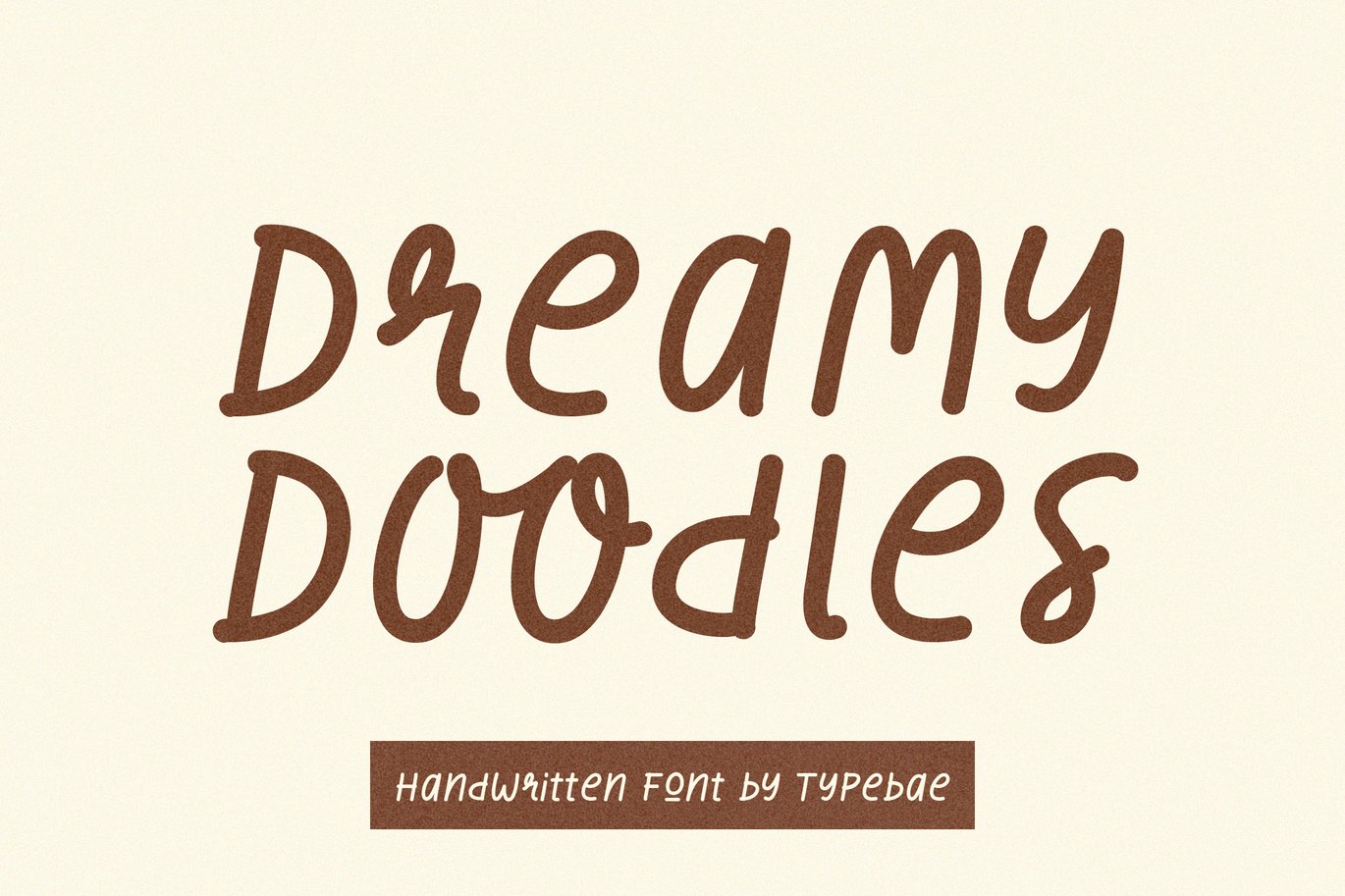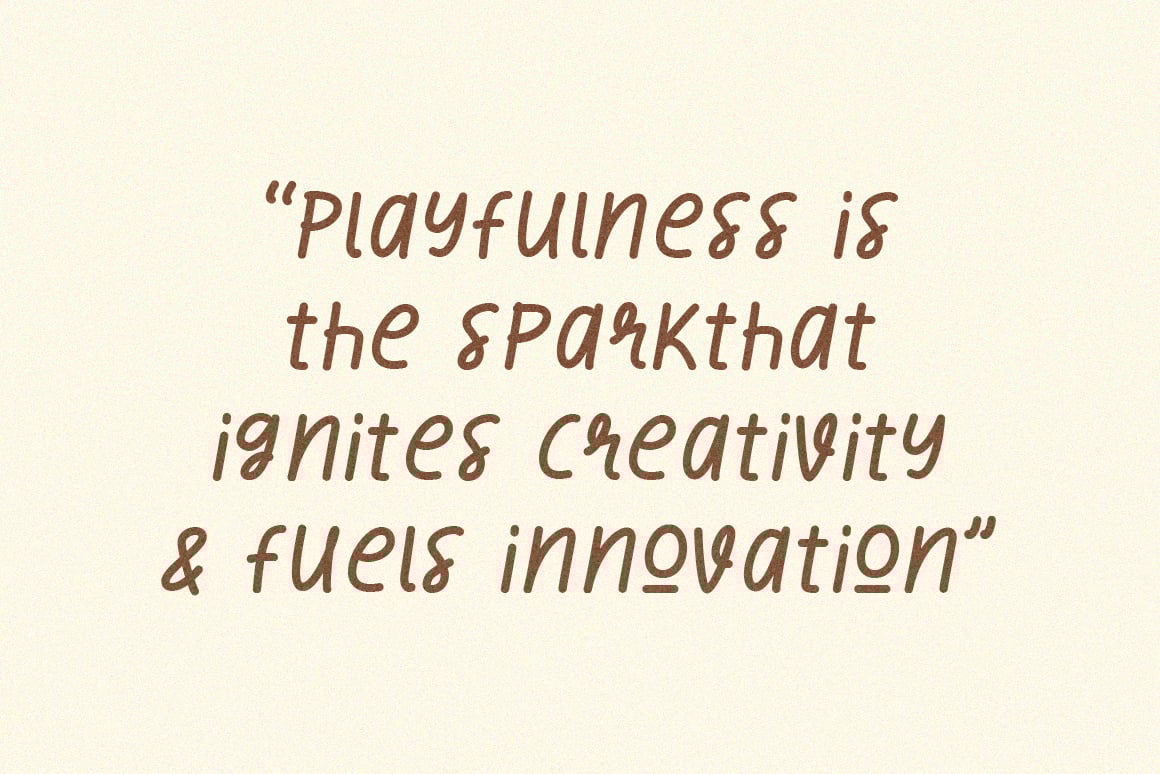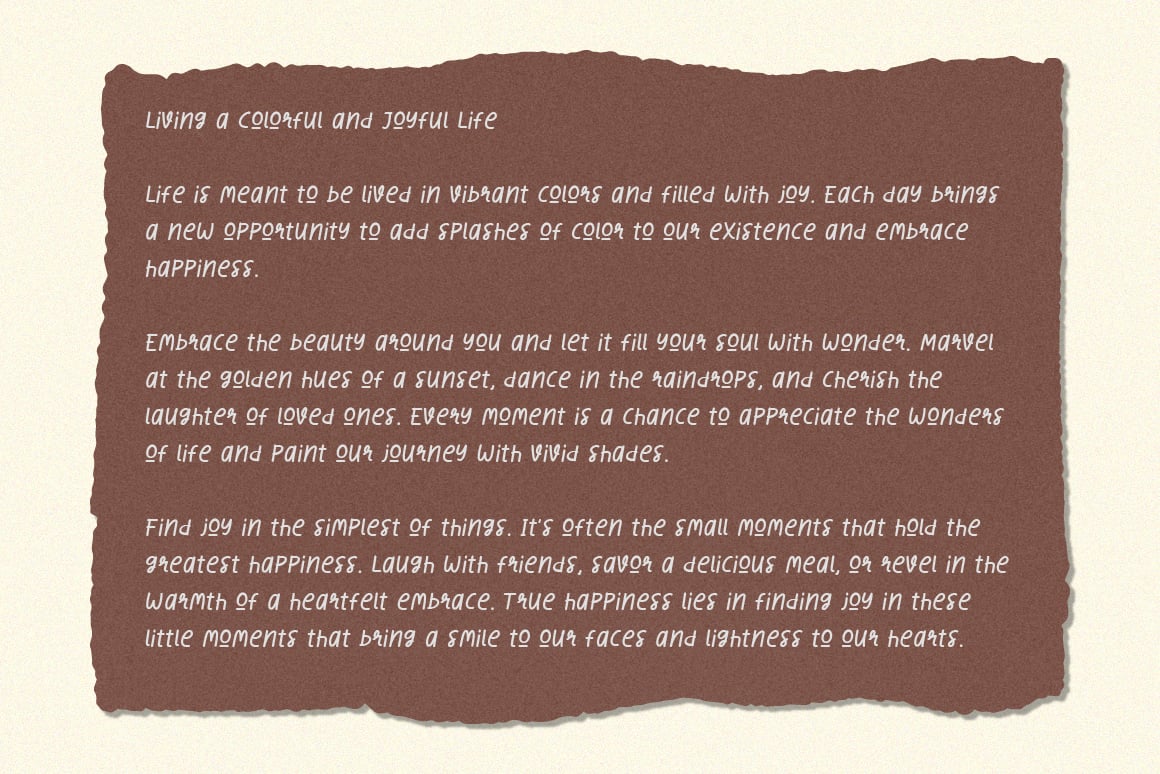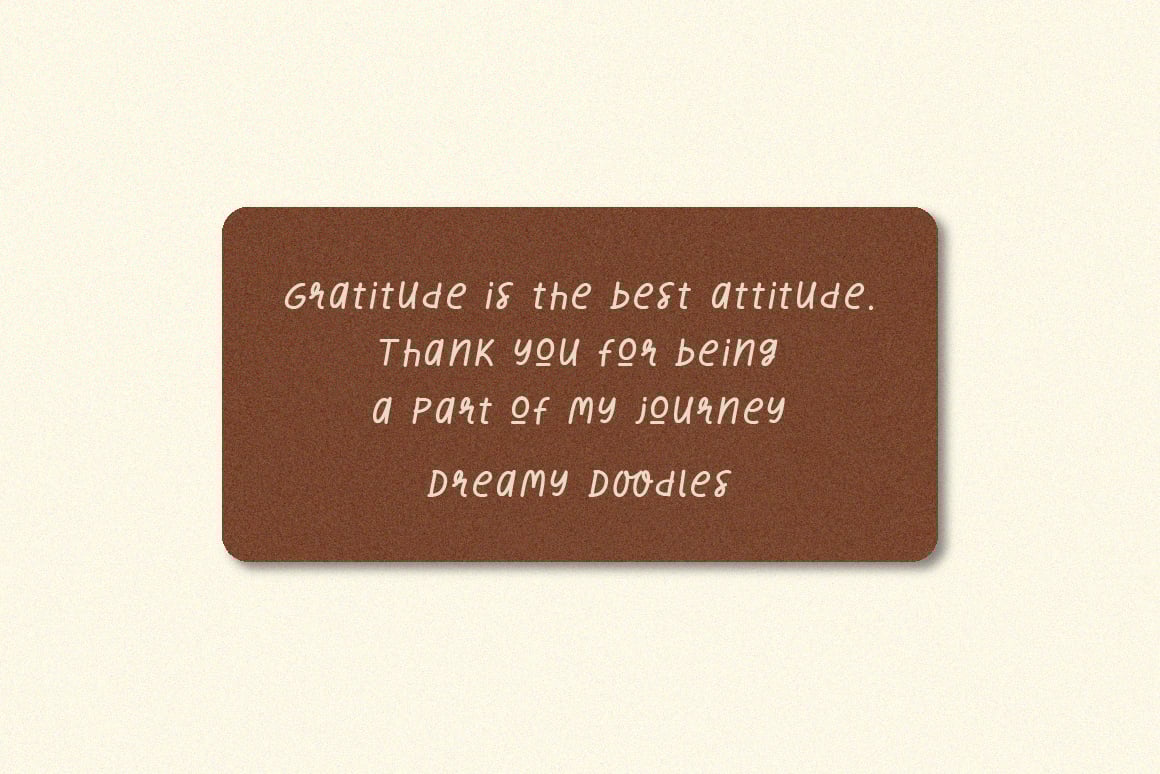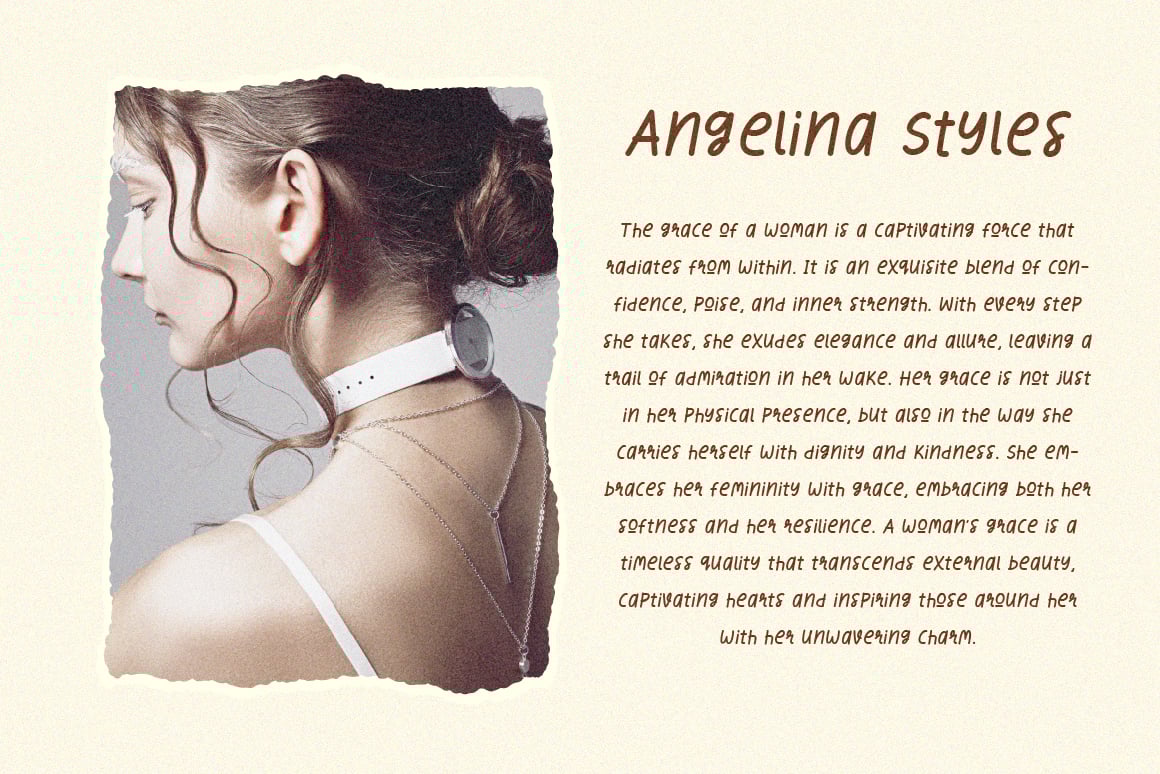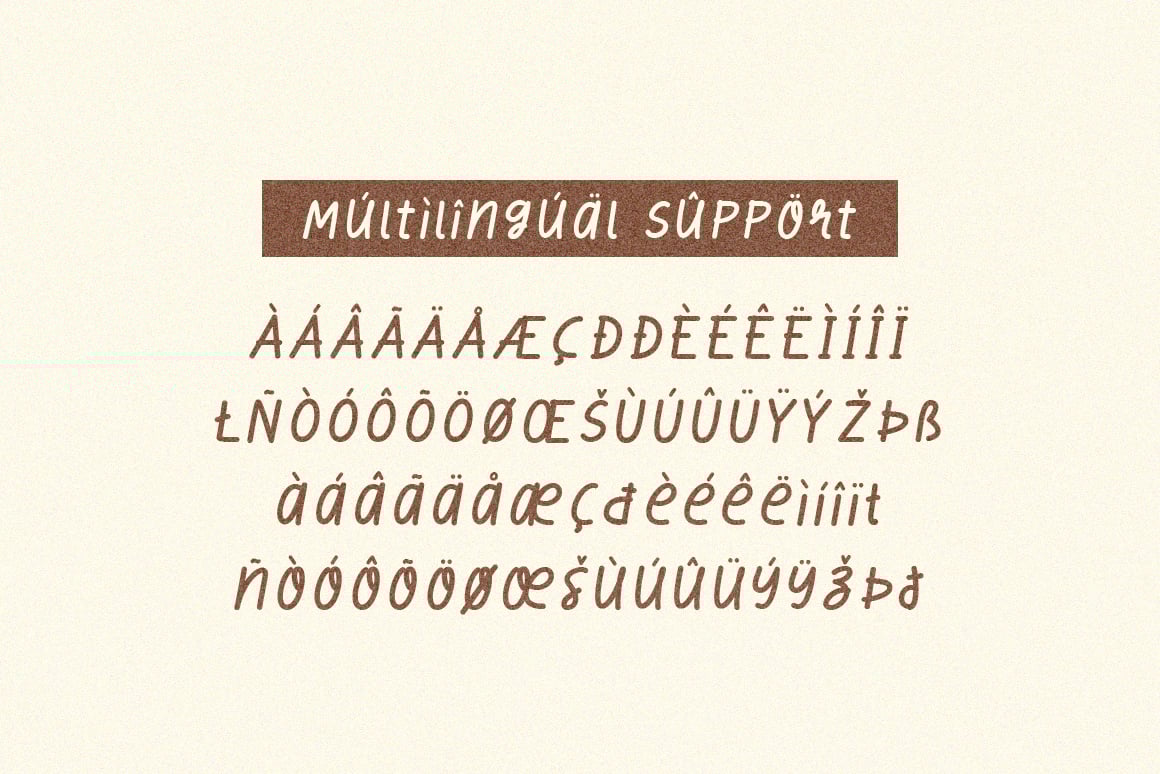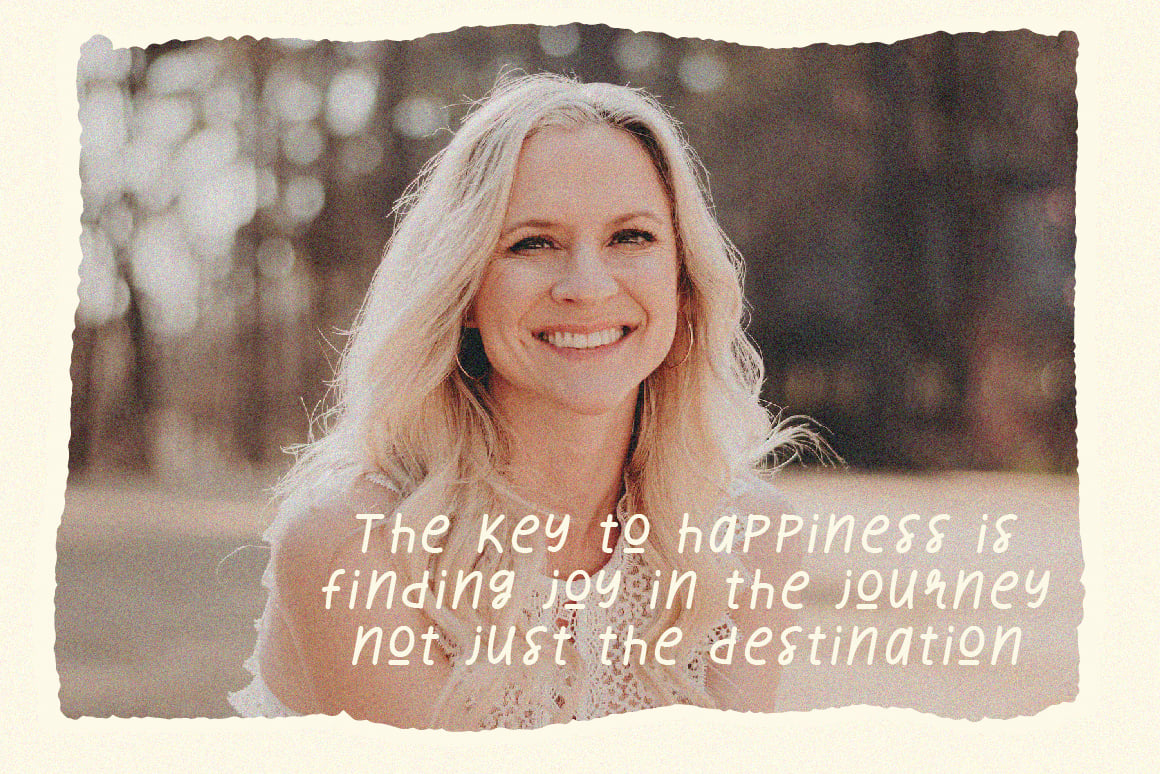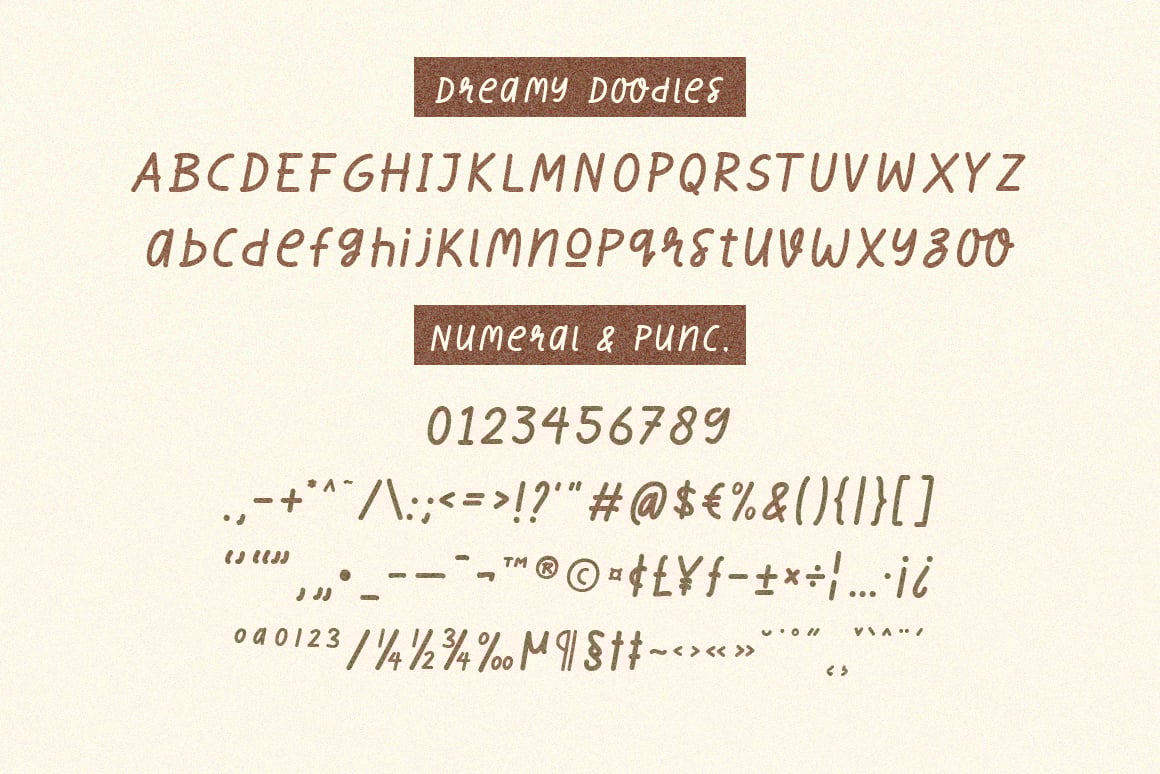
Dreamy Doodles – Playful Maker Font
Dreamy Doodles Font is a stylish and joyful that captures the essence of a modern handwritten marker. It exudes a delightful and lively vibe, perfect for those seeking a refreshing and vibrant aesthetic. This font’s effortlessly conveys a cool and fashionable impression, making it an excellent choice for those looking to create eye-catching and trendy designs.
- Ligature feature
- Multilingual Support: Afrikaans, Basque, Breton, Catalan, Danish, Dutch, English, Finnish, French, Gaelic (Irish, Scots), German, Icelandic, Indonesian, Irish, Italian, Norwegian, Portuguese, Saami (Southern), Spanish, Swahili, Swedish.